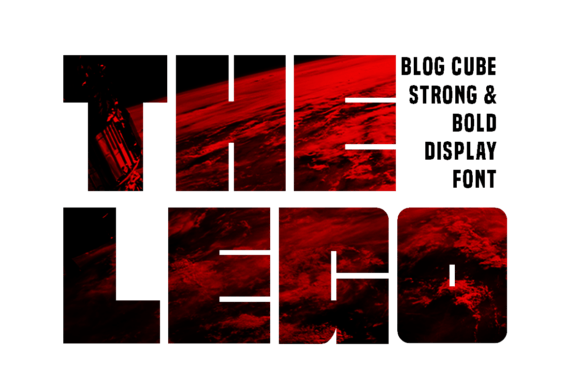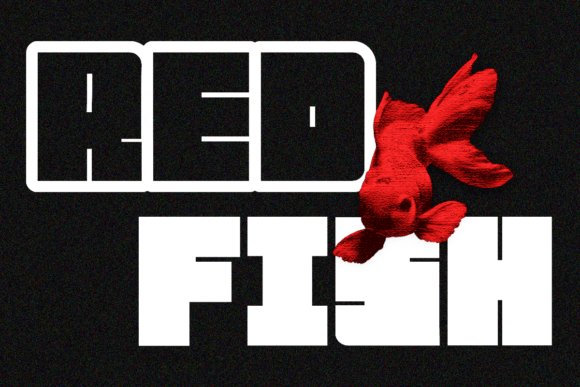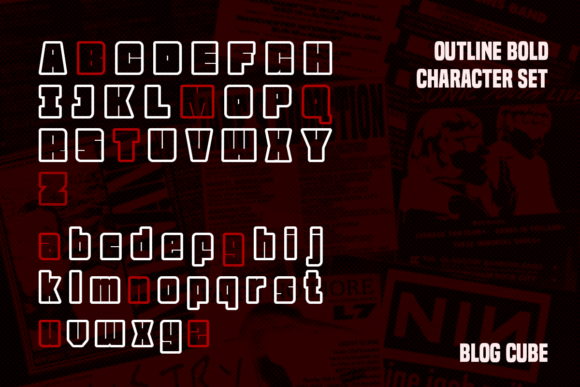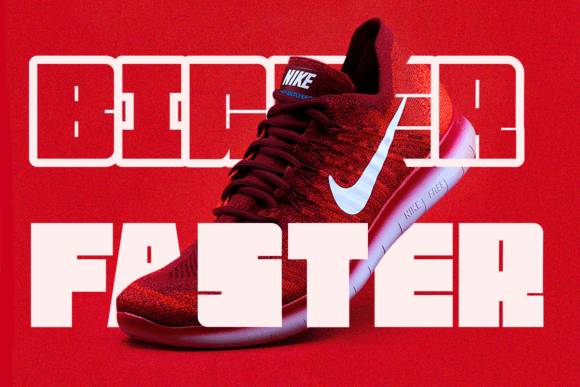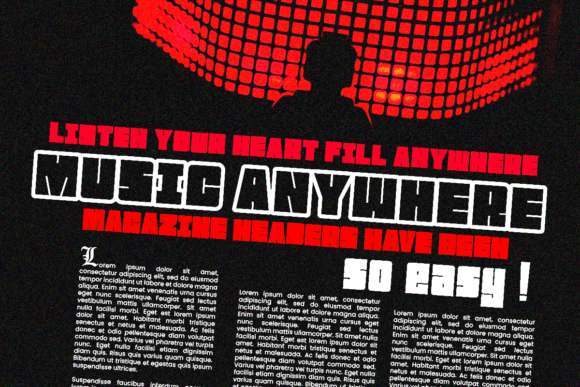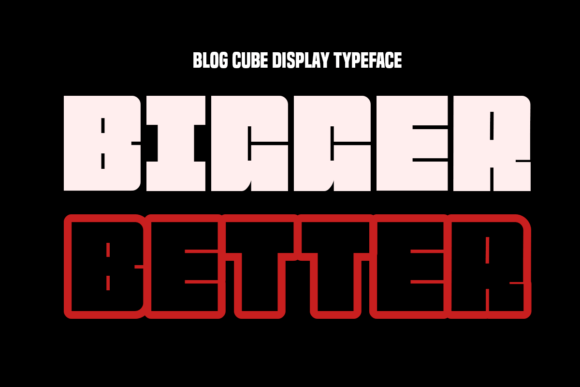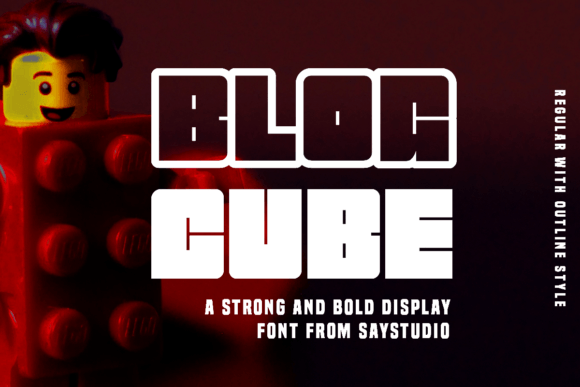
Introducing Blog Cube Font: The Ultimate Display Typeface for Bold Projects
Are you looking for a font that can make a statement and add a touch of boldness to your designs? Look no further than Blog Cube Font, a strong and sturdy display typeface that is perfect for a wide range of projects. With its unique rectangular shape, Blog Cube Font is sure to grab attention and leave a lasting impression.
What is Blog Cube Font?
Blog Cube Font is a bold and strong display typeface that features a distinctive rectangular shape. This font is designed to make a statement and is perfect for projects that require a bold and eye-catching look. Whether you’re working on a poster, logo, branding project, cover, banner, t-shirt design, or header, Blog Cube Font is the perfect choice.
Key Features of Blog Cube Font
- Bold and Strong: Blog Cube Font is a bold and strong display typeface that is designed to make a statement.
- Rectangular Shape: The unique rectangular shape of Blog Cube Font sets it apart from other fonts and makes it perfect for projects that require a bold and geometric look.
- Versatile: Blog Cube Font is versatile and can be used for a wide range of projects, including posters, logos, branding, covers, banners, t-shirts, and headers.
- Easy to Read: Despite its bold and strong appearance, Blog Cube Font is easy to read, making it perfect for large-scale artwork and other projects where legibility is important.
Uses for Blog Cube Font
Blog Cube Font is a versatile font that can be used for a wide range of projects, including:
- Posters: Add a bold and eye-catching touch to your posters with Blog Cube Font.
- Logos: Create a strong and memorable logo with Blog Cube Font.
- Branding: Use Blog Cube Font to create a consistent and bold look for your brand.
- Covers: Add a touch of boldness to your book or magazine covers with Blog Cube Font.
- Banners: Create eye-catching banners with Blog Cube Font that are sure to grab attention.
- T-Shirts: Design bold and eye-catching t-shirts with Blog Cube Font.
- Headers: Use Blog Cube Font to create bold and eye-catching headers for your website or blog.
- Large-Scale Artwork: Blog Cube Font is perfect for large-scale artwork, including billboards, signage, and more.
Why Choose Blog Cube Font?
There are many reasons why you should choose Blog Cube Font for your next project. Here are just a few:
- Unique Look: Blog Cube Font has a unique and distinctive look that sets it apart from other fonts.
- High-Quality: Blog Cube Font is a high-quality font that is designed to look great in any project.
Tips for Using Blog Cube Font
Here are a few tips for using Blog Cube Font:
- Use it Sparingly: Because Blog Cube Font is a bold and strong font, it’s best to use it sparingly to avoid overwhelming your design.
- Pair it with Other Fonts: Blog Cube Font pairs well with other fonts, so don’t be afraid to experiment with different combinations.
- Experiment with Colors: Blog Cube Font looks great in a variety of colors, so experiment with different colors to find the one that works best for your project.
| Font Name | Blog Cube Font |
| Author | SayStudio |
Blog Cube Font is a bold and strong display typeface that is perfect for a wide range of projects. With its unique rectangular shape and versatile design, Blog Cube Font is sure to grab attention and leave a lasting impression. Whether you’re a designer or crafter, Blog Cube Font is a great choice for any project that requires a bold and eye-catching look.